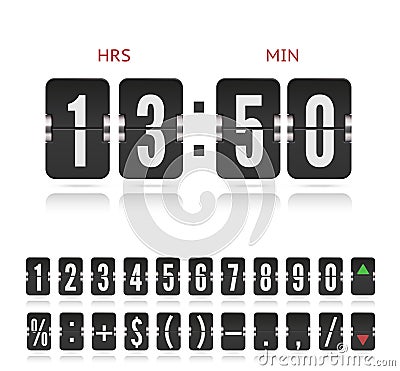
Vector vintage flip clock time counter. Scoreboard number symbol font. Analog stock exchange board countdown timer #213601167
Vintage flip clock time counter vector template. Scoreboard number and stock exchange symbol font with reflections on white. Floating analog airport board countdown timer with hour and minute flip.